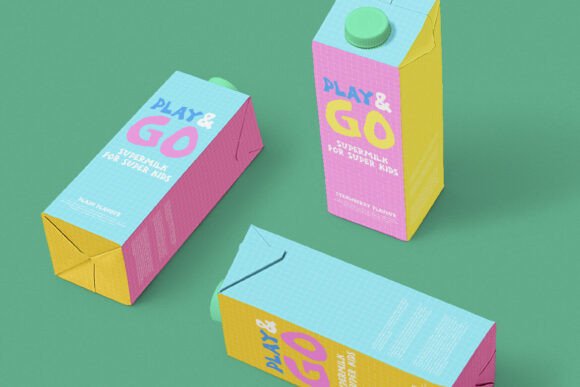
Introduction to Playgo Font
As a designer, there’s nothing quite like the spark of inspiration that comes from a creative moment with a loved one. For me, that moment came when my daughter started doodling with crayons on a sunny afternoon. Her unbridled creativity and playful spirit captivated me, and I knew I had to capture that essence in a design resource. Thus, the Playgo Font was born – a unique and charming font that’s perfect for any kid-themed or playful design project.
What makes the Playgo Font truly special is its handmade nature. Every letter is carefully crafted by hand and then traced into vectors and fonts, giving it a distinctive, hand-drawn look that’s both playful and professional. With a transparent background, this font is easy to use and customize, making it a valuable design resource for any creative project. Whether you’re working on a children’s book, a website, or a social media campaign, the Playgo Font is sure to add a touch of whimsy and fun to your design.
Key Features of Playgo Font
- Unique, hand-drawn design perfect for creative projects requiring a touch of whimsy and personality.
- Perfect for use in digital and print media, including logos, branding materials, and creative writing projects.
- Designed to be versatile and adaptable, suitable for a wide range of creative projects and design applications.
Honest Review: Playgo Font
I recently had the chance to work with the Playgo Font, and I must say, it’s been a game-changer for my creative projects. As a designer, I’m always on the lookout for high-quality fonts that can add an extra layer of professionalism to my designs. The Playgo Font has exceeded my expectations in this regard.
- ✨ Customizable: The font offers a range of weights and styles that can be easily customized to fit the needs of your design project.
- ✨ Versatile: Whether you’re working on a logo, brochure, or website, the Playgo Font is versatile enough to be used in a variety of contexts.
One thing to keep in mind is that the font may not be suitable for all designs, especially those that require a transparent background. However, for most creative projects, the Playgo Font is a solid choice.
Overall, I’m thoroughly impressed with the Playgo Font. It’s a high-quality design resource that I’d highly recommend to anyone looking to elevate their creative projects. With its customizable options and versatile style, it’s a great addition to any designer’s toolkit.
Tips for Getting the Most Out of Playgo Font
To get the most out of the Playgo Font, experiment with different font sizes, colors, and combinations. This design resource is perfect for creative projects, allowing you to add a unique touch to your designs.
The Playgo Font is ideal for a variety of creative projects, including branding, marketing materials, and digital products. Its unique style and high-quality design make it a popular choice among designers and creatives.